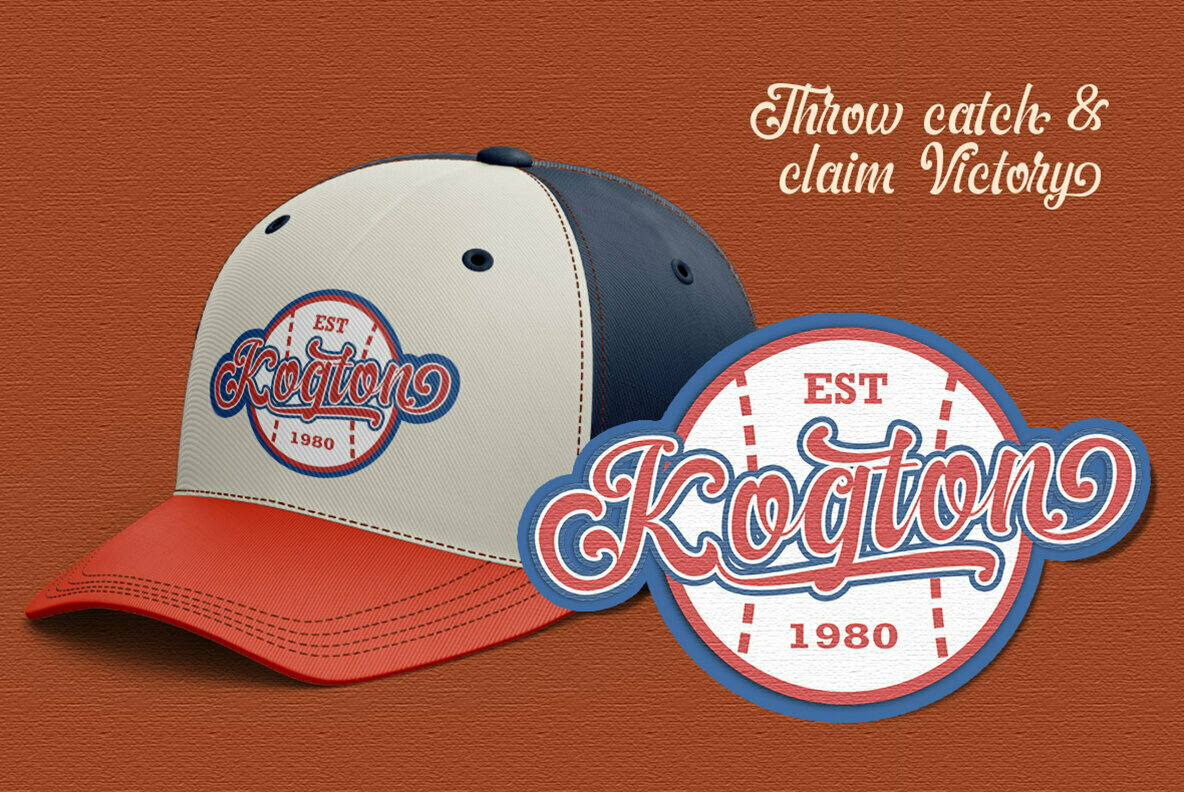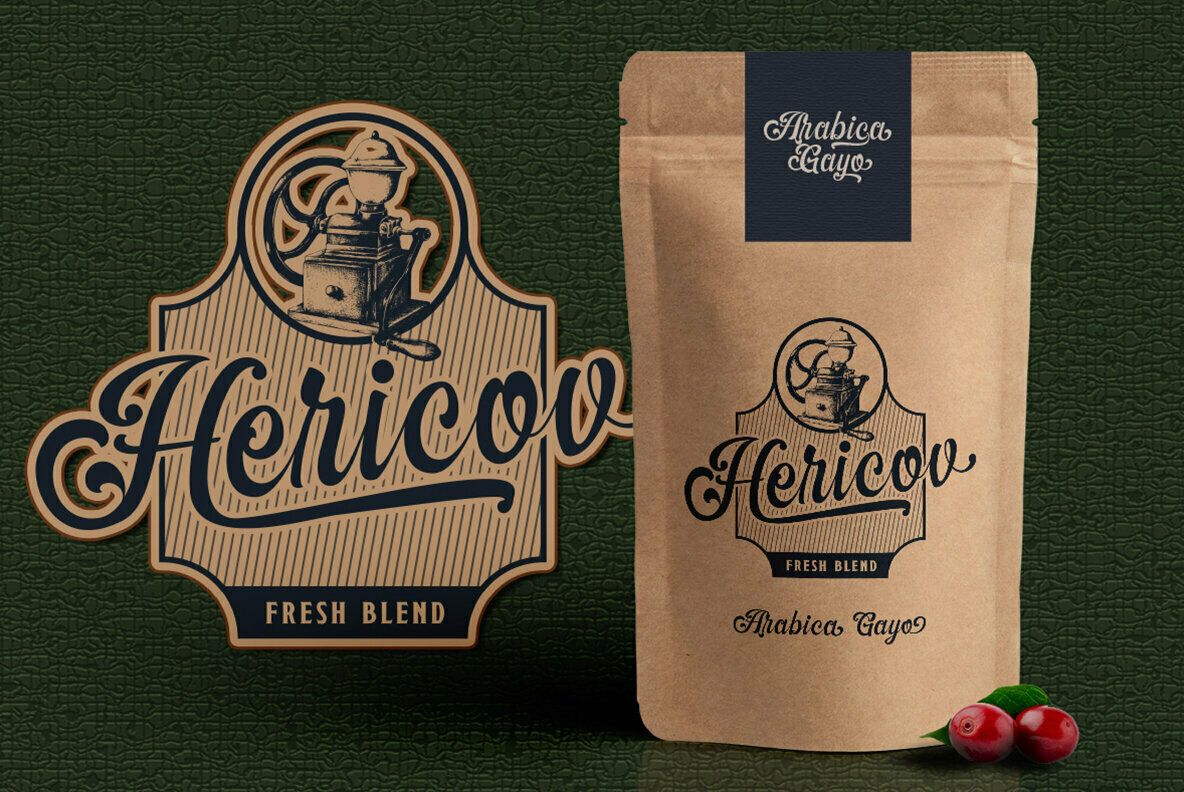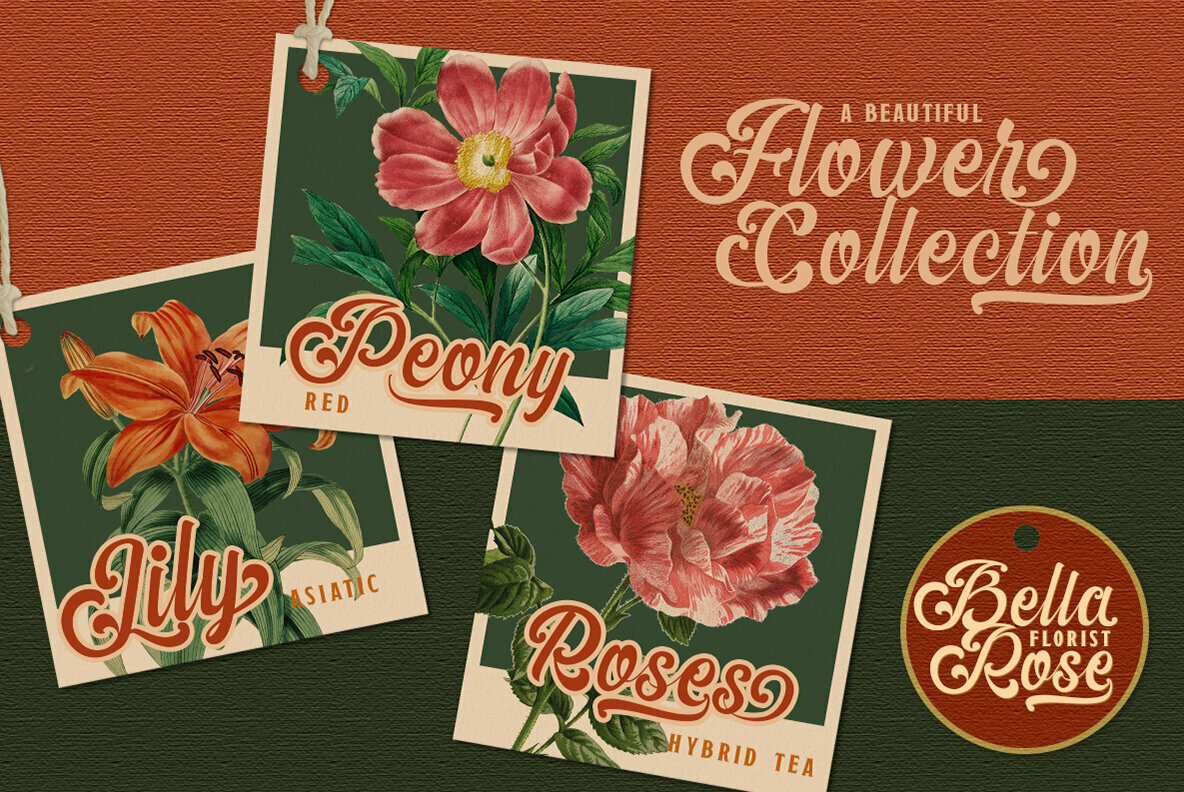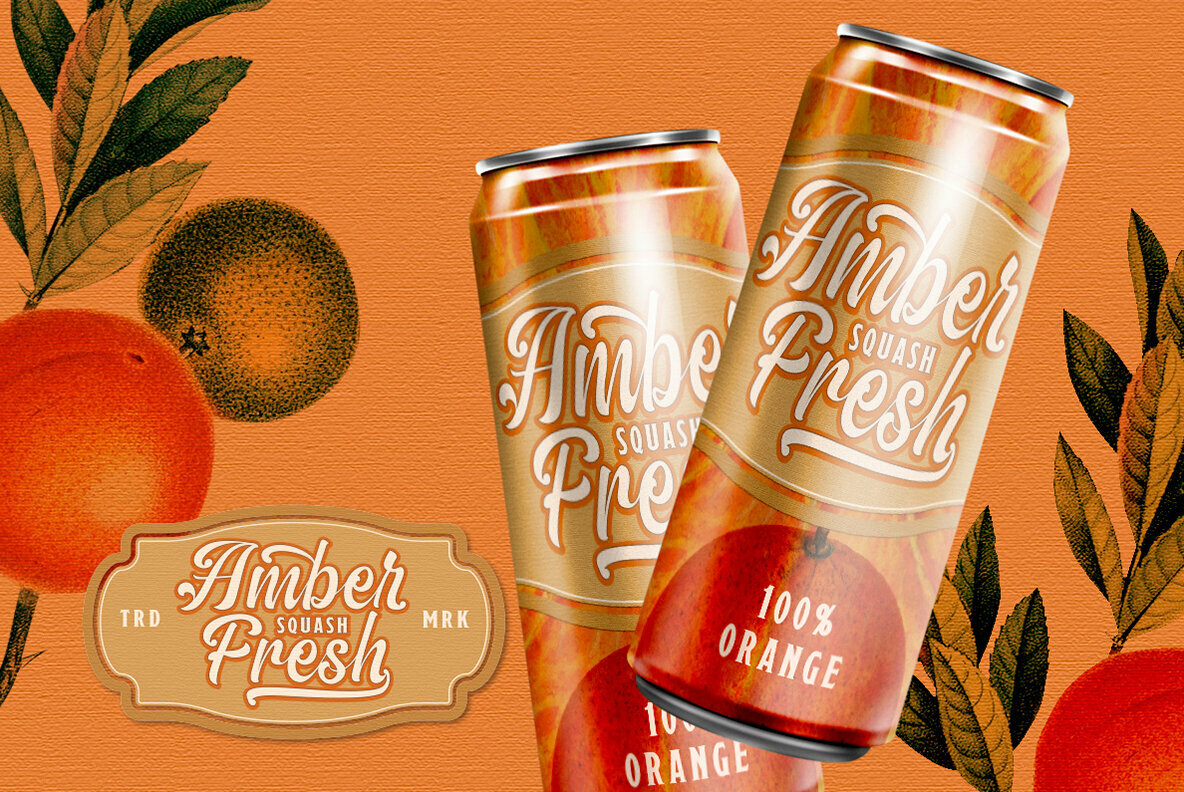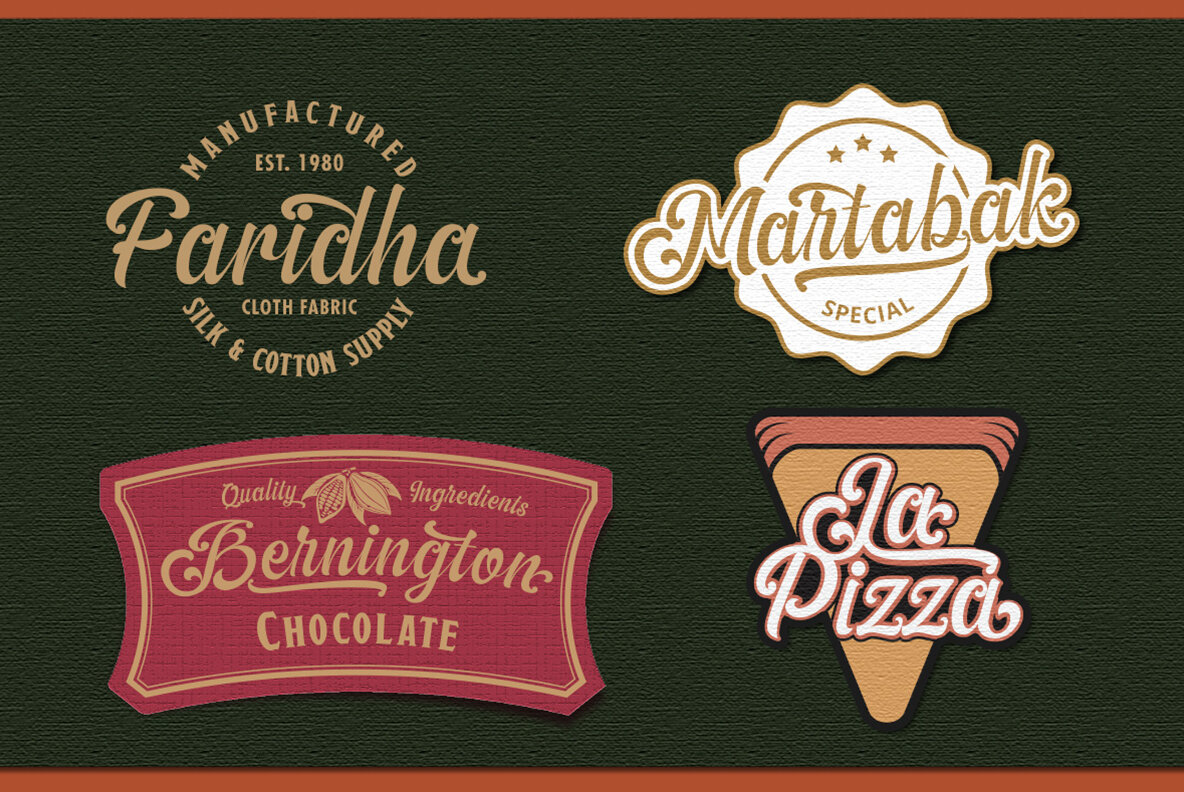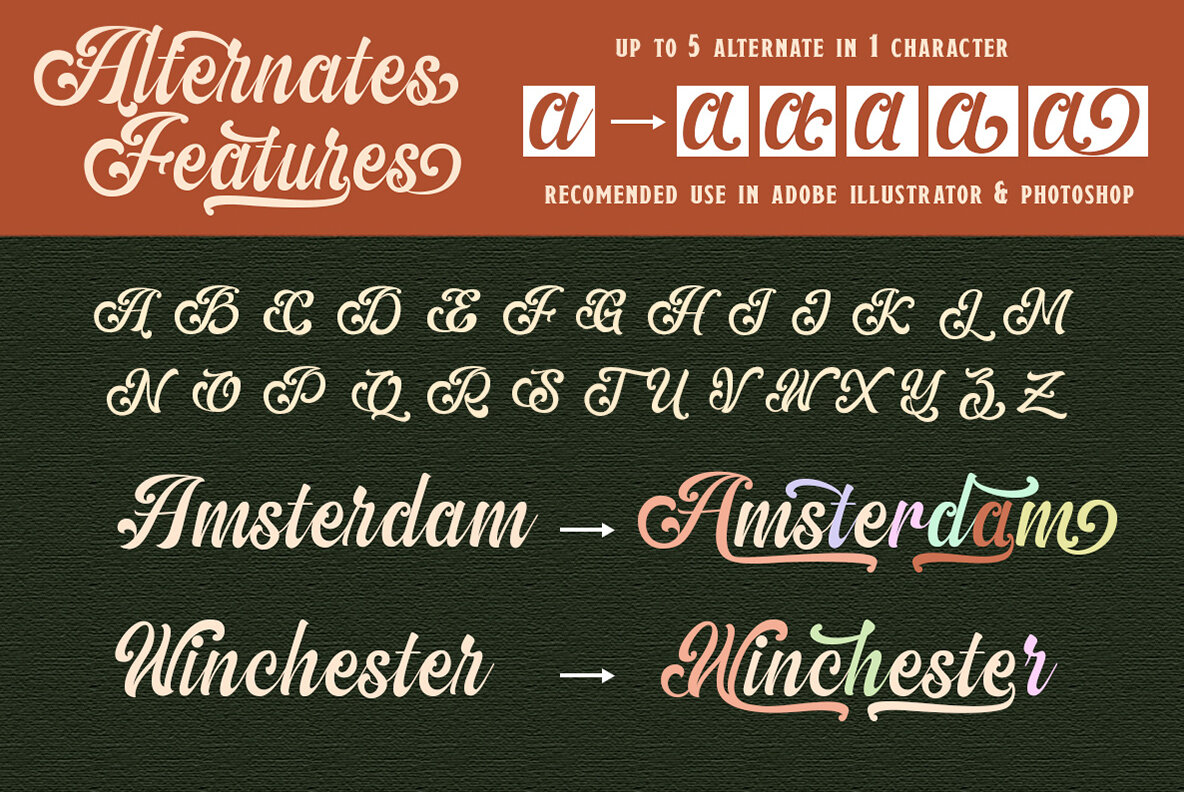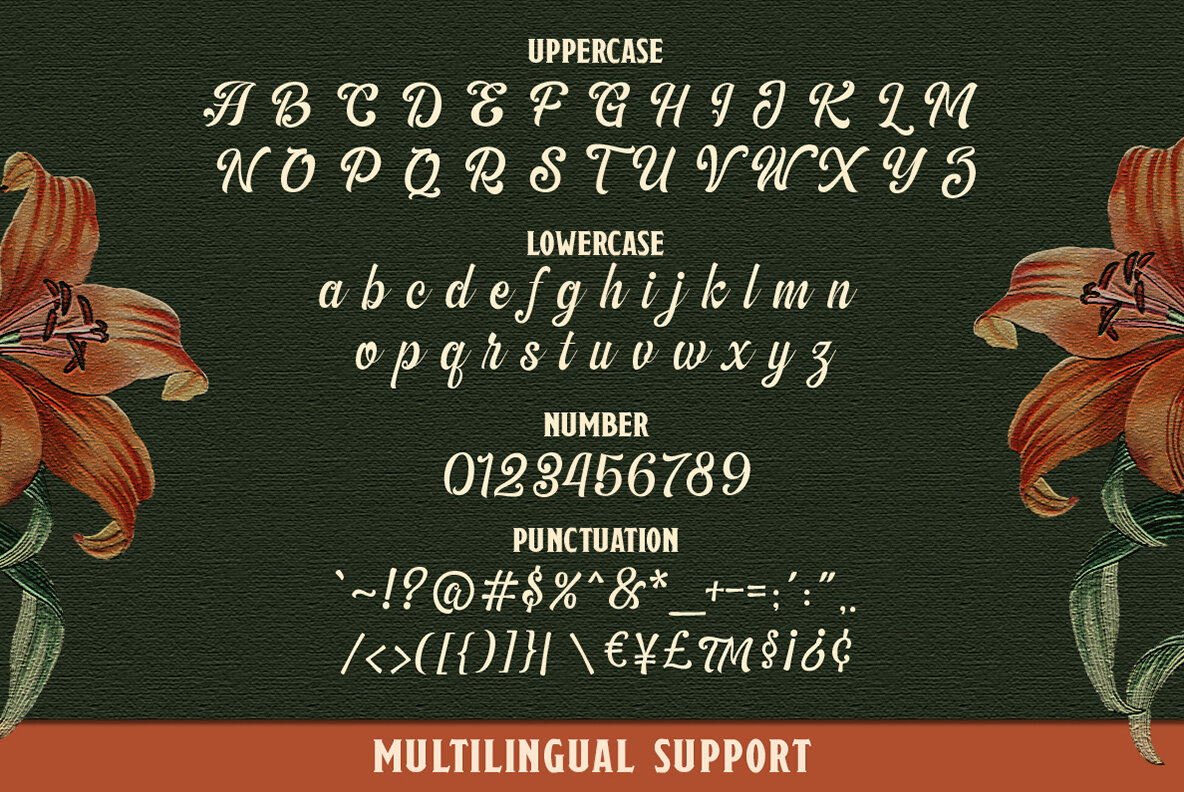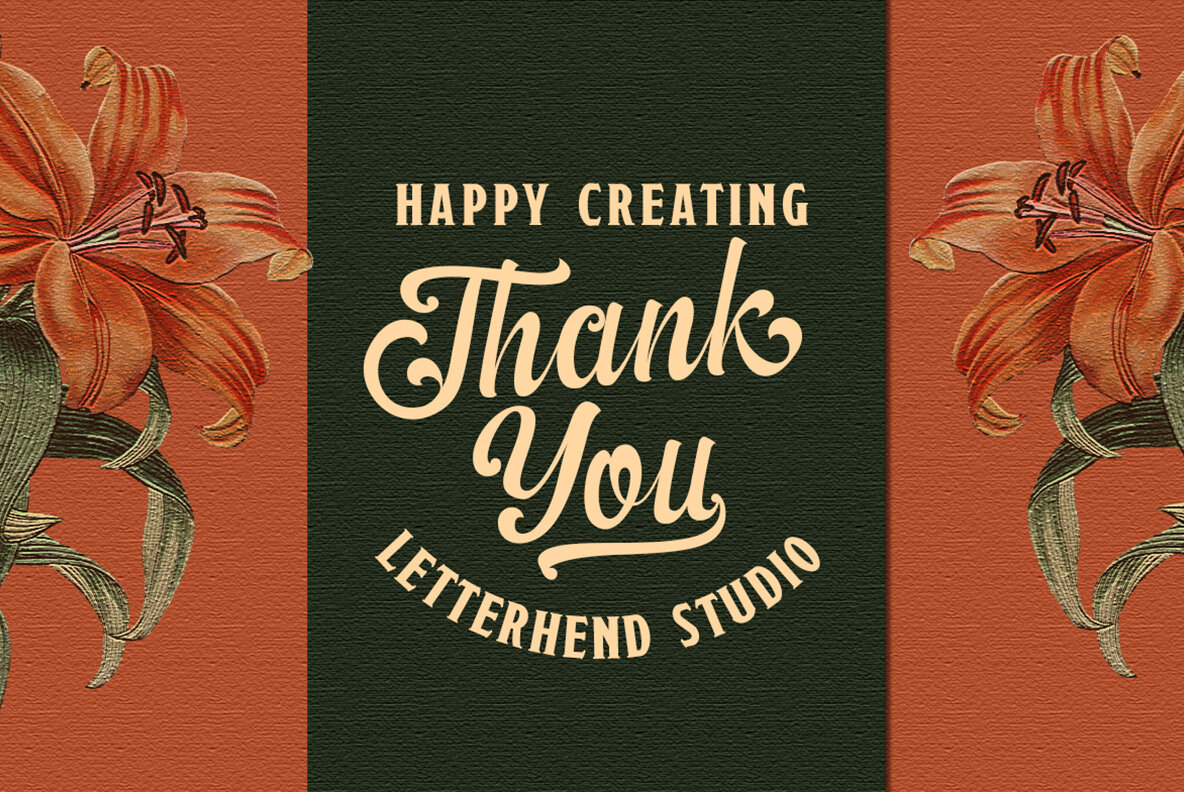
The Amberton Font
The Amberton Regular
The Amberton by Letterhend Studio is a captivating script typeface that melds classic style with artistic flair. Inspired by vintage floral ornaments, it offers unique swashes and an impressive 290 alternates, enabling remarkable customization for any design endeavor. This typeface is ideally suited for a broad range of applications. Whether crafting a logo, designing invitations, or enhancing book covers, The Amberton brings elegance and sophistication. Its versatility extends to packaging, fashion magazines, greeting cards, and advertising, making it a valuable asset for formal and creative projects alike.The Amberton: Classic Script Typeface with Ornamental Swashes